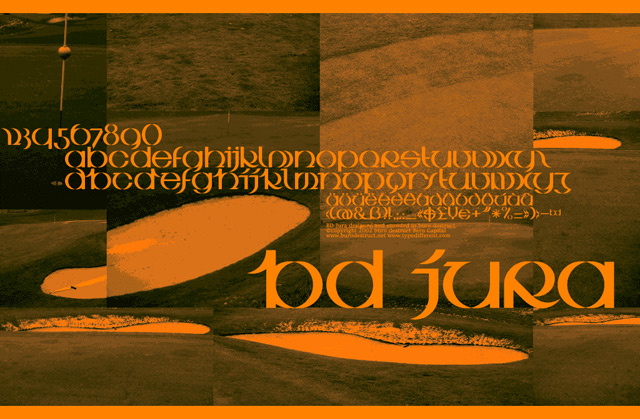
Discover the Unique Charm of BD Jura Font
Are you a designer or crafter looking for a font that embodies the spirit of Celtic heritage and geometric sophistication? Look no further than the BD Jura Font. Inspired by a trip to the Isle of Jura in Scotland, this font is a masterpiece of modern typography that seamlessly blends traditional Celtic style with contemporary geometric interpretation.
The Story Behind BD Jura Font
BD Jura Font is the brainchild of MB & Lopetz Büro Destruct, a creative duo who drew inspiration from their journey to the Isle of Jura, a small island off Scotland’s west coast. The island’s rugged landscape, rich history, and Celtic heritage left an indelible mark on the designers, influencing their work on this unique font. Since its release in 2002, BD Jura Font has been a prized asset for designers and crafters seeking a distinctive and authentic aesthetic.
Celtic Roots and Geometric Twist
BD Jura Font is deeply rooted in Celtic typography, yet it takes a bold step forward with its geometric interpretation. The font’s design combines the intricate patterns and flowing lines characteristic of Celtic art with the precision and simplicity of geometric shapes. This fusion results in a visually striking and highly legible font, perfect for a wide range of creative projects.
Key Features of BD Jura Font
• Geometric Interpretation: BD Jura Font offers a fresh take on traditional Celtic typography, incorporating geometric shapes and clean lines.
• Celtic Inspiration: The font’s design is infused with the spirit of Celtic art, featuring intricate patterns and a distinctive aesthetic.
• High Legibility: Despite its ornate details, BD Jura Font remains highly legible, making it suitable for body text and headlines.
• Unique Character: Each letterform in BD Jura Font boasts a unique character, ensuring that your text stands out from the crowd.
Uses of BD Jura Font
BD Jura Font’s versatility makes it an excellent choice for various design projects, including:
• Branding and Logo Design: The font’s distinctive style makes it perfect for creating memorable logos and brand identities.
• Packaging Design: Add a touch of Celtic flair to your product packaging with BD Jura Font.
• Web Design: Use BD Jura Font to create visually engaging websites that stand out from the crowd.
• Stationery and Print Design: The font’s unique character makes it ideal for designing business cards, brochures, and other print materials.
BD Jura Font is a true gem in the world of typography, offering a captivating blend of Celtic heritage and geometric sophistication. Whether you’re a designer, crafter, or simply a typography enthusiast, this font is sure to inspire and elevate your creative projects. With its unique character, high legibility, and versatility, BD Jura Font is an excellent addition to any design arsenal.